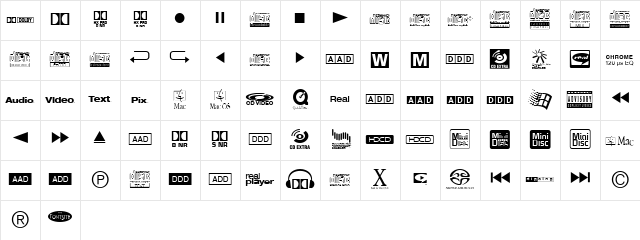
Complete CombiSymbols CD Regular glyph index. Displaying only characters natively supported by CombiSymbols CD Regular font.
CombiSymbols CD is a composed and adaptable typeface that performs quietly and consistently across a wide range of design contexts.